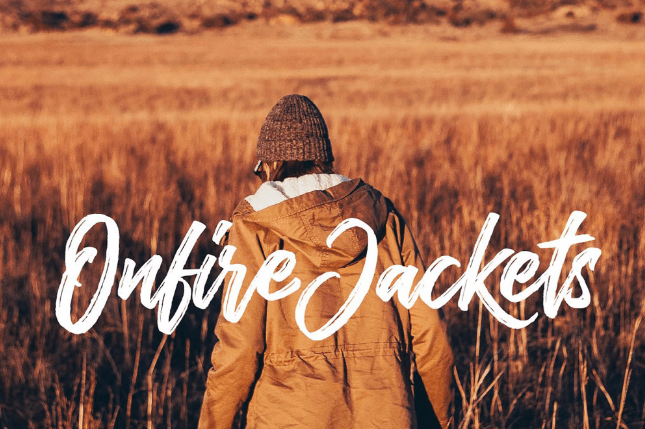
Historia Sky Font is a cheerful and bright typeface that includes letters, 1100 alternates, and swash characters with italic.
Historia bold typeface is a unique textual style for marks, store signs, solicitations, and images. Ligatures and logical alternatives are accessible for interesting arrangements.
This textual style combines amazingly appropriately with a straightforward imposing textual style like Guthen bloots. The differentiation among the heaviness of the 2 text styles will guarantee that neoteric is obvious.
Regarding the matter of valuable present-day typography, manrope is the real arrangement. Historia italic basic text style from pixel surplus has astounding clearness in every upper and lowercase letter.
Historia Sky Font Free
Historia Sky font is a free text style that consolidates 5 loads: light, digital book, semibold medium, aspiring, and dark. Peruse and appearance extra into this one on this pdf record.
Historia typeface is an exceedingly creative typeface that comes in 4 text styles: a common one, a space test kind, a characterize, and a twofold line textual style.
A stunning humanist Historia sky upright typeface, intersection feels a lump firmly twisted in that the lowercase you and almost experience somewhat squeezed; standard a satisfying looking through text style, however.
Presently thick by utilizing Charles Daoud is a flexible text style. To be had in flimsy, customary, and aggressive, Varela text style rethinks nuance. Historia sky typeface comes in a few loads, which I guess makes it stacks extra adaptable.
Use this bold and regular typeface that has old styles, 45catchwords, swash numerals, and lining numerals.